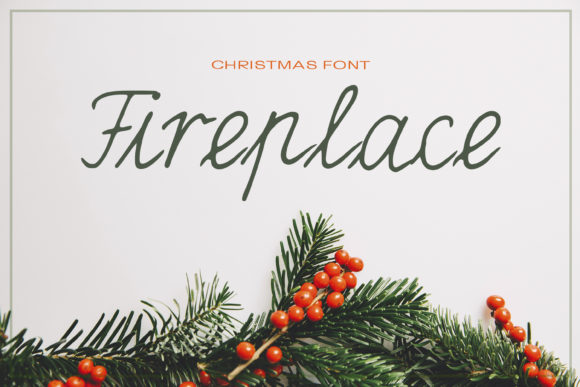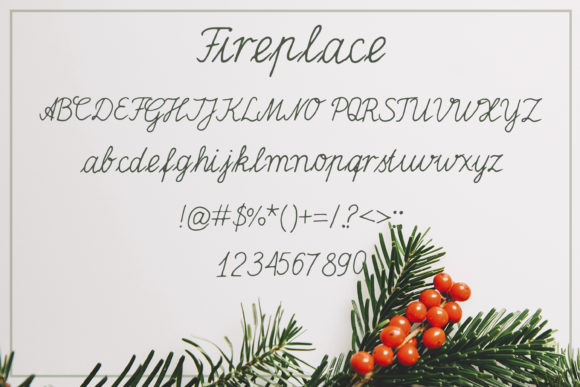
Fireplace Font
About Fireplace Font
Fireplace is a delicate and magical handwritten font. This gentle font will look gorgeous on a variety of design ideas. It will add a joyful and romantic touch to each of your projects!